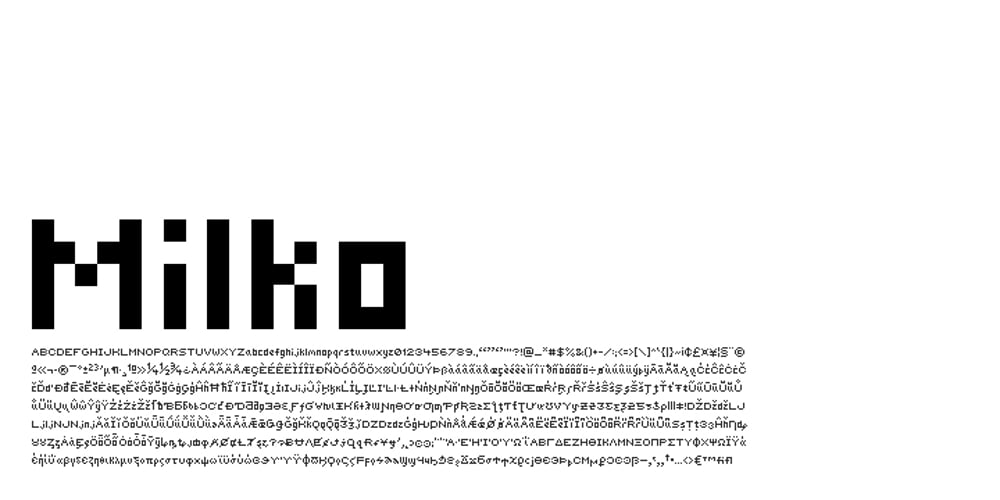
Milko
Milko font
Milko Font Family was designed by Jesse Andrew Tilley and published by Jesse Tilley. Milko contains 1 styles and family package options. 670 Characters in this tiny font. It’s small, it’s clean and there are no gimmicks. This is as simple as a bitmap font gets.